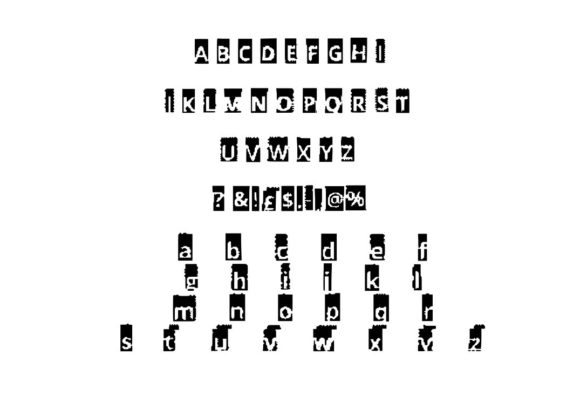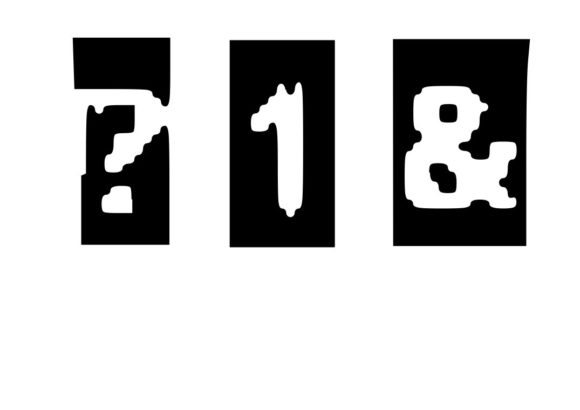
The Block Glitch Font: A Glitchy Gem for Designers and Crafters
I’ll never forget the time I was working on a project for a client who wanted a font that screamed “hacker” and “glitch art.” I scoured the internet, tried countless fonts, but nothing seemed quite right. That was until I stumbled upon the Block Glitch font. Its distorted, glitchy feel was perfect for the project, and I’ve been hooked ever since. In this article, we’ll dive into the world of Block Glitch font, exploring its features, how to use it, and some similar fonts you might love.
So, what makes Block Glitch font so special? Here are some things I love:
- ✨ Distorted, glitchy feel: The font’s unique design makes it perfect for projects that need a bit of an edgy, techy vibe.
- ✅ Uppercase and lowercase versions: The font comes in both uppercase and lowercase versions, making it versatile for various design projects.
- 🔥 Includes numbers and symbols: The font includes a range of numbers and symbols, making it a great all-around choice.
Of course, no font is perfect, and Block Glitch font has a few small quirks:
- 🤔 Limited kerning options: Some users might find the kerning options a bit limited, which can affect the font’s overall look.
- ⚠️ May not be suitable for body text: Due to its distorted nature, Block Glitch font might not be the best choice for body text or long-form writing.
The Block Glitch font was inspired by the world of glitch art and the idea of digital errors. The designer wanted to create a font that captured the essence of a glitchy, techy vibe. The result is a font that’s perfect for designers, crafters, and creative hobbyists who want to add a bit of edge to their projects.
| Font Name | Block Glitch Font |
| Author | GraphicsBam Fonts |
| What is Block Glitch font? | Block Glitch font is a glitched screen typeface that comes in both uppercase and lowercase versions, including numbers and symbols. |